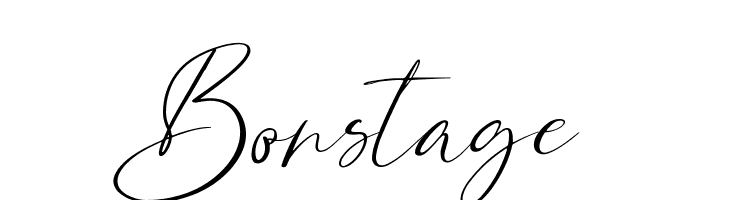
• Bonstage schriftart
A fluid, cursive font with elegant, interconnected strokes and a natural handwriting style.
• Bontang schriftart
A bold, geometric font with a modern and clean aesthetic.
• BonteDivine schriftart
A playful, whimsical font with curly serifs and rounded edges.
• BontellaScript schriftart
An elegant and sophisticated script font with flowing curves and ornate details.
• Bonus Base schriftart
A modern, rounded font with bold, consistent strokes and a playful style.
• Bonus Base schriftart
A modern, rounded font with a playful and approachable style.
• Bonus Bling Bling schriftart
A modern, line-patterned font with a futuristic and dynamic style.
• Bonus Bling Bling schriftart
A modern, decorative font with a unique striped pattern and geometric shapes.
• Bonus Coffee schriftart
A playful, rounded font with bold, smooth curves and a friendly appearance.
• Bonus Coffee schriftart
A playful, bold font with rounded, thick strokes and a friendly appearance.